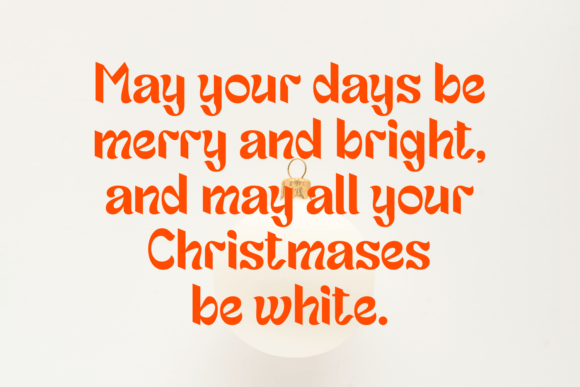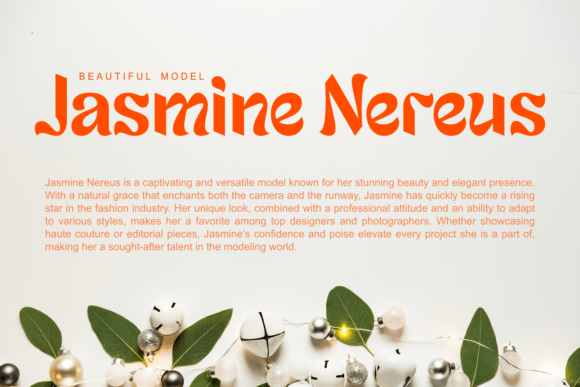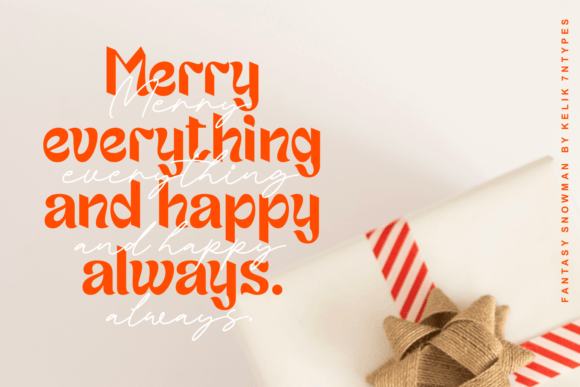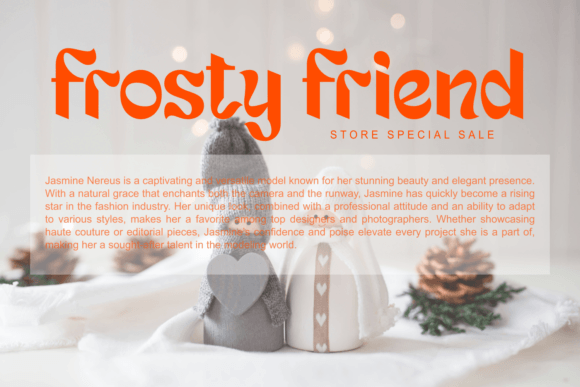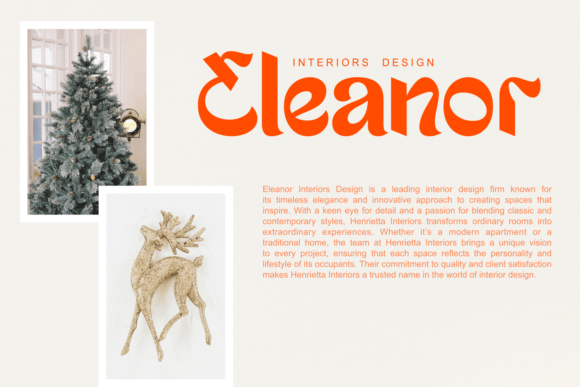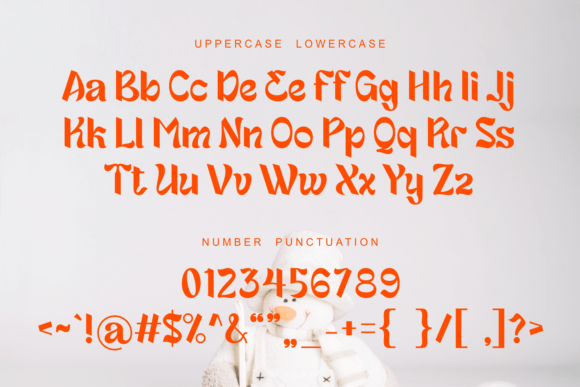
Introduction to Fantasy Snowman Font
Who among us hasn’t experienced that magical moment when creativity strikes, and the perfect design element pops into our minds? For many, it’s the sparkle of snowflakes, the twinkle of festive lights, or the charm of a winter wonderland scene that sets the creative juices flowing. One such design element that can transport you to a whimsical world of winter magic is the Fantasy Snowman Font. This delightful, bold handwritten font is a must-have for designers looking to add a dash of festive flair to their projects.
With its playful, high-quality letters that resemble a touch of magic, the Fantasy Snowman Font is a valuable design resource for any creative project. Whether you’re crafting holiday decorations, designing greeting cards, or working on a festive theme, this font is sure to bring a cheerful, wintry feel to your designs. And the best part? You can easily download it to use in your next project, with a transparent background to match your design needs.
Key Features of Fantasy Snowman Font
- Unique and whimsical design, perfect for creative projects and winter-themed artwork.
- Perfect for adding a touch of magic to your creative project, from greeting cards to website headers.
Honest Review: Fantasy Snowman Font
I recently stumbled upon the Fantasy Snowman Font, a quirky and fun design resource perfect for creative projects. The font’s unique aesthetic caught my attention, and I decided to dive deeper to see what it has to offer.
What works well: ✨ The Fantasy Snowman Font has a transparent background, making it easy to overlay on images or use as a standalone element in your design. The font is also free to download, which is a significant plus for designers on a budget. The high quality of the font ensures that it looks crisp and clear even at larger sizes.
- Unique aesthetic
- High quality
Limitations: ⚠️ The Fantasy Snowman Font may not be suitable for serious or professional projects, as its playful nature may come across as unprofessional. Additionally, the font may not be as versatile as some other design resources, limiting its use in more complex designs.
Overall impression: I think the Fantasy Snowman Font is a great addition to any designer’s toolkit, especially for creative projects or social media graphics. Its unique look and high quality make it a great choice for designers looking for a fun and eye-catching design resource.
Introduction to Fantasy Snowman Font
The Fantasy Snowman Font is a unique design resource that can add a touch of magic to your creative projects. With its high-quality design and transparent background, it’s perfect for adding a whimsical feel to your work.
Common Use Cases for Fantasy Snowman Font
The Fantasy Snowman Font is perfect for a variety of creative projects, including:
- Winter-themed designs, such as holiday cards and gift tags.
- Children’s book illustrations and educational materials.
- Magazine and newspaper articles about winter sports and activities.